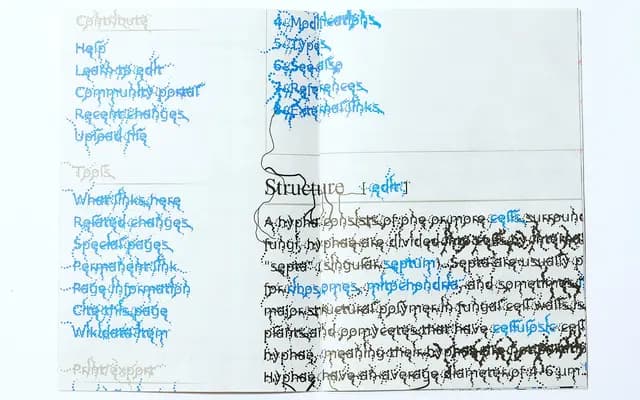
An open-source display typeface from French studio Studio Triple, with little public documentation available.
Released as open-source by Studio Triple, Fungal appears to be an experimental or decorative display face. The page offers minimal detail on its design intent, weights or language support. Its name suggests an organic or unusual visual character, though specifics remain unclear from the available copy.
Listed under typefaces by Studio Triple with minimal descriptive copy; the name and open-source status suggest an experimental or decorative display design rather than a text face.